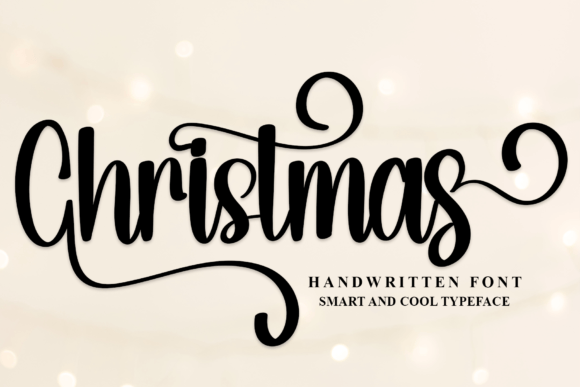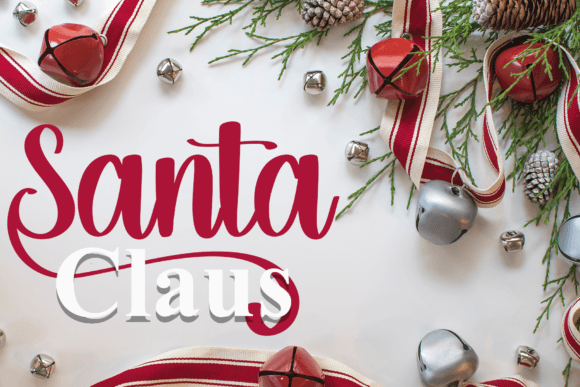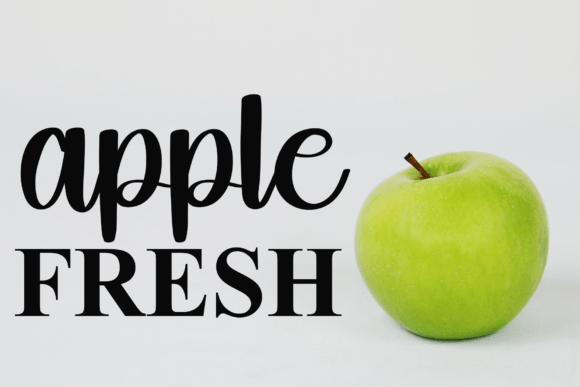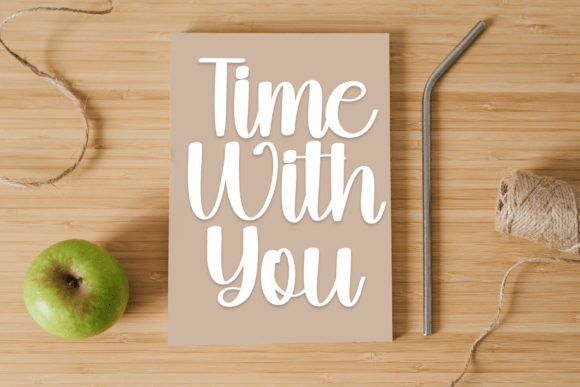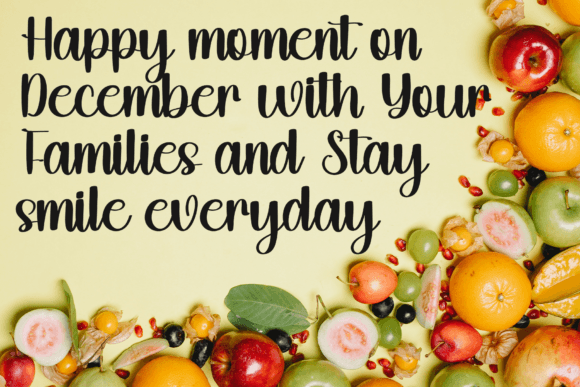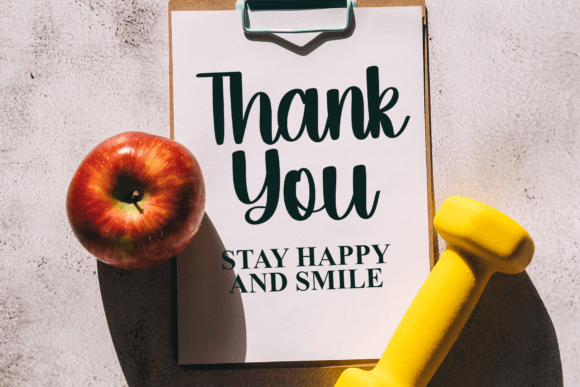
Christmas is a stylish handwritten font with a contemporary atmosphere and impeccable form, inspired by a timeless classic calligraphy. Balanced and varied, this font was designed to enhance the beauty of your projects.